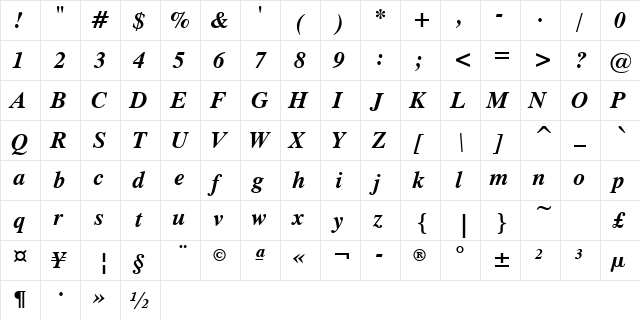
Dutch801Greek BT Bold Inclined
Design Context for Dutch801Greek BT Typeface
Dutch801Greek BT takes a measured approach to typography — its balanced proportions and neutral character make it a reliable workhorse for both digital and print work. The heavy weight commands attention and anchors typographic hierarchies.